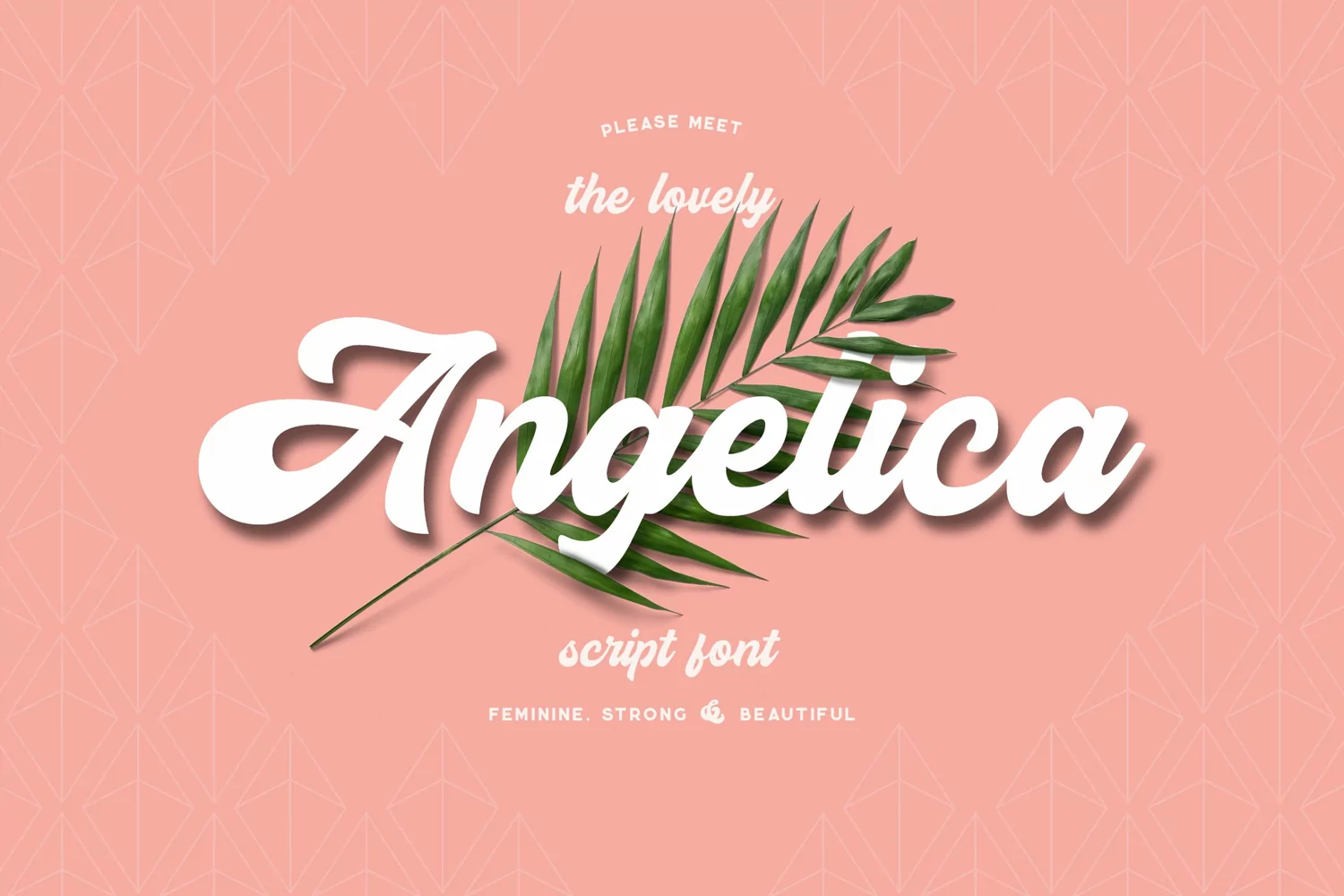
Angelica is a feminine, strong and beautiful hand drawn brush script font. It has a great attention to detail for the capital letters. They are big, bold and demands your attention. This font is ideal for sublimation projects yet versatile enough for any typography ideas you have. Lowercase, caps, numbers and punctuation are included in the download.